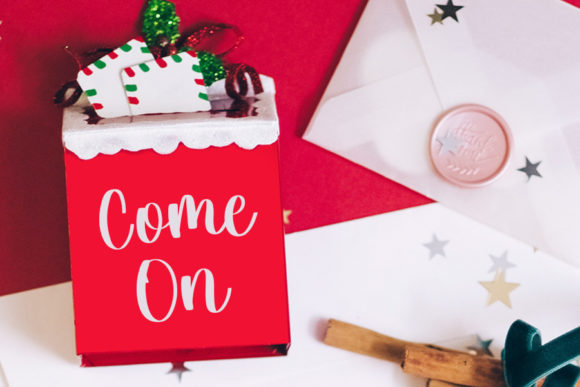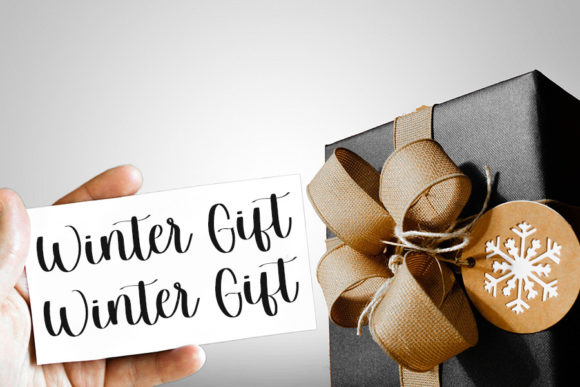
About Sunny Winter Font
Sunny Winter is a well balanced and graceful script font. Fall for its ravishing style and use it to create gorgeous wedding invitations, beautiful stationary art, eye-catching social media posts, and much more!